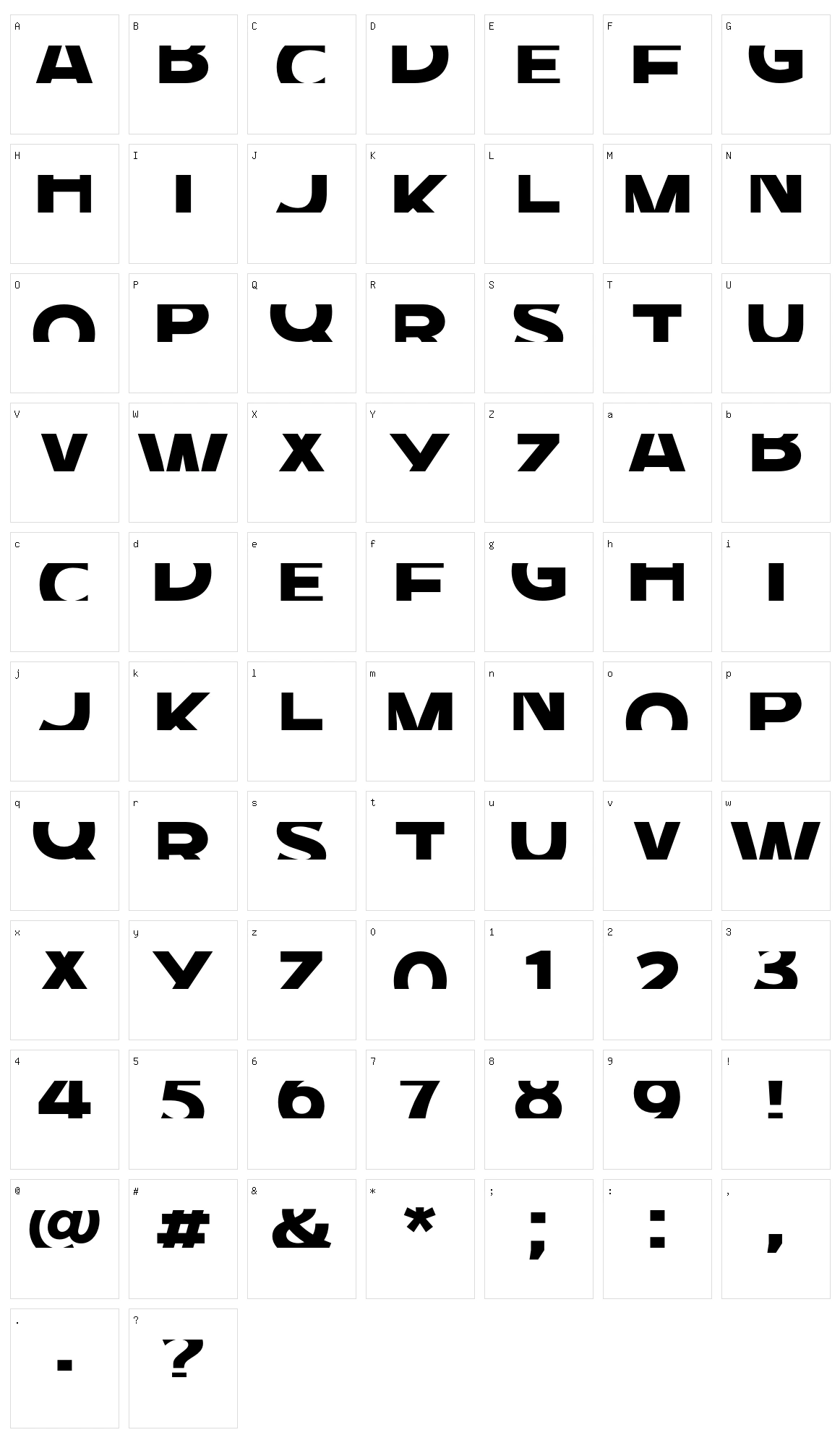
The free font Big City Vibes is carefully designed by Roland Huse Design, showcasing a thoughtful balance of creativity and usability and falls under the Distorted font style. When you download the ZIP file, it contains only 1673.71 KB of font files, making it lightweight and quick to download. Please review the license details below to understand permitted usage and distribution rights. If license information is not available, we recommend using this font for personal projects only or contacting the author directly for commercial usage permissions.